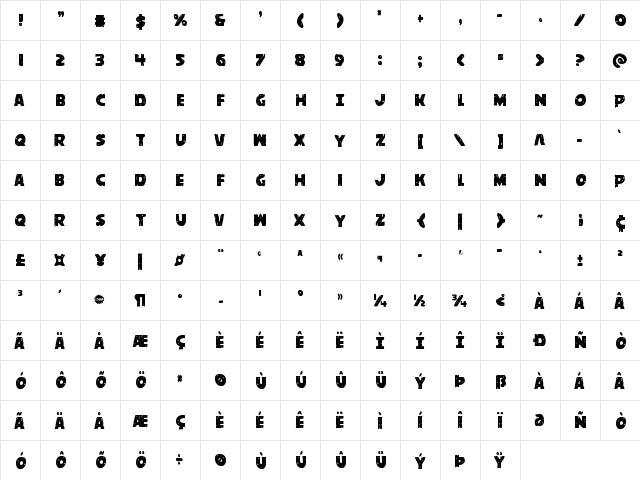
Behemuth Condensed Condensed
Design Context for Behemuth Condensed Typeface
Behemuth Condensed is a composed and adaptable typeface that performs quietly and consistently across a wide range of design contexts. The condensed width makes it efficient for tight spaces without sacrificing legibility.